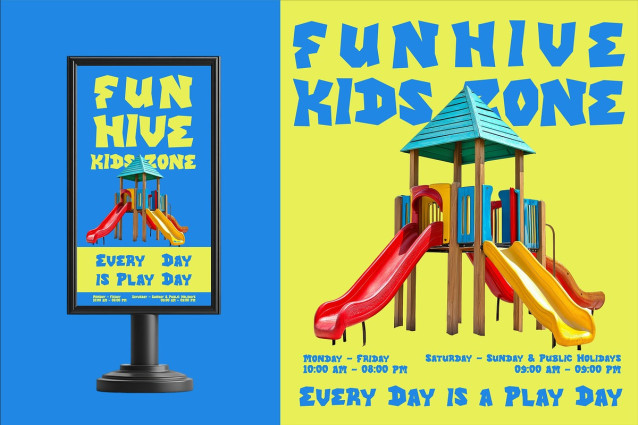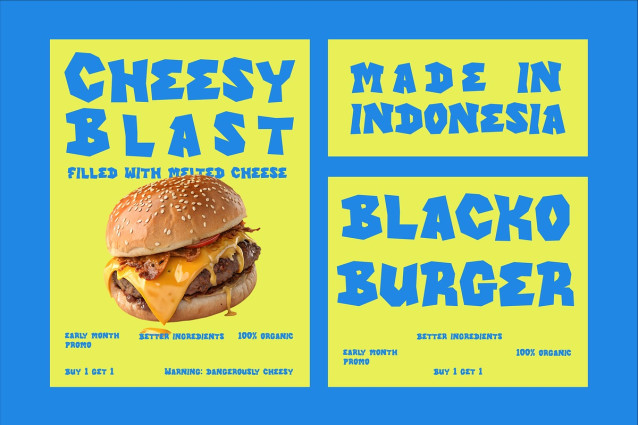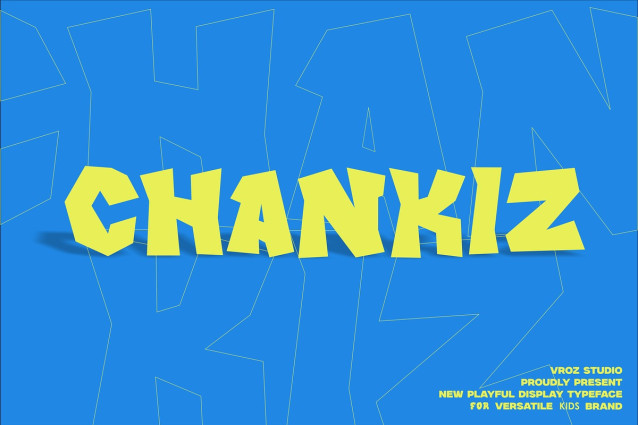
Chankiz Playful Font
Chankiz Playful Font is a bold, blocky, and super fun display font made just for kids’ creative worlds! Shaped like chunky building blocks with playful, sharp edges, this font is full of energy and imagination.
With its thick, brick-like letters and lively style, CHANKIZ is perfect for children’s books, cartoons, toy packaging, school projects, posters, games, YouTube thumbnails, and anything that needs a fun and bold touch.
Every letter feels like it’s built to play — solid, cheerful, and full of personality. Whether you’re stacking up words like blocks or creating colorful kid-friendly designs, CHANKIZ is here to bring the fun!